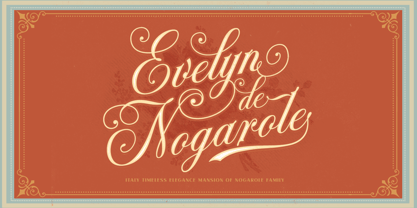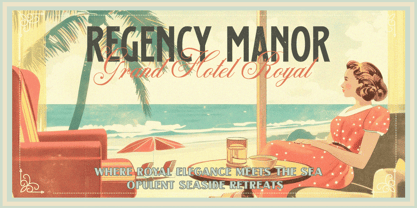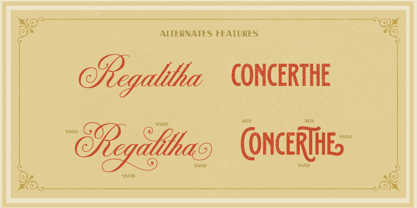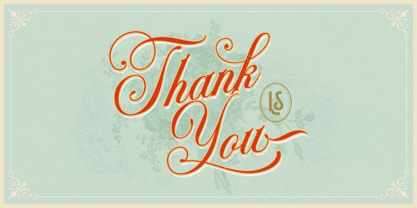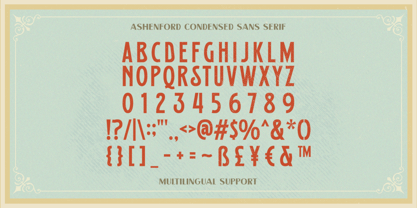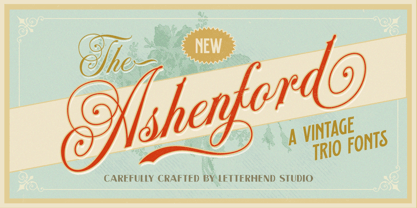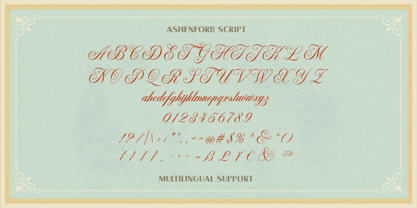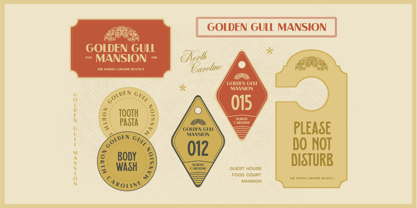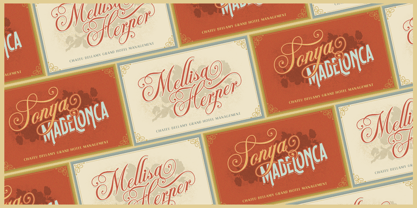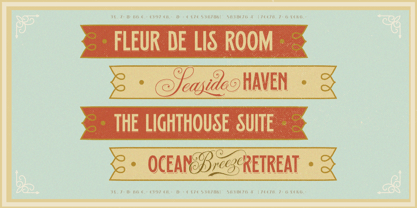
Ashenford
by Letterhend
Step into timeless elegance with Ashenford, a meticulously crafted font trio that blends classic sophistication with vintage charm. Inspired by old-world signage, elegant calligraphy, and refined typography, this collection features a stylish script, a condensed sans-serif, and a high-contrast sans-serif—perfect for branding, logos, packaging, posters, and editorial designs.
Features :
• Uppercase & lowercase
• Numbers and punctuation
• Alternates & Ligatures
• Multilingual Support